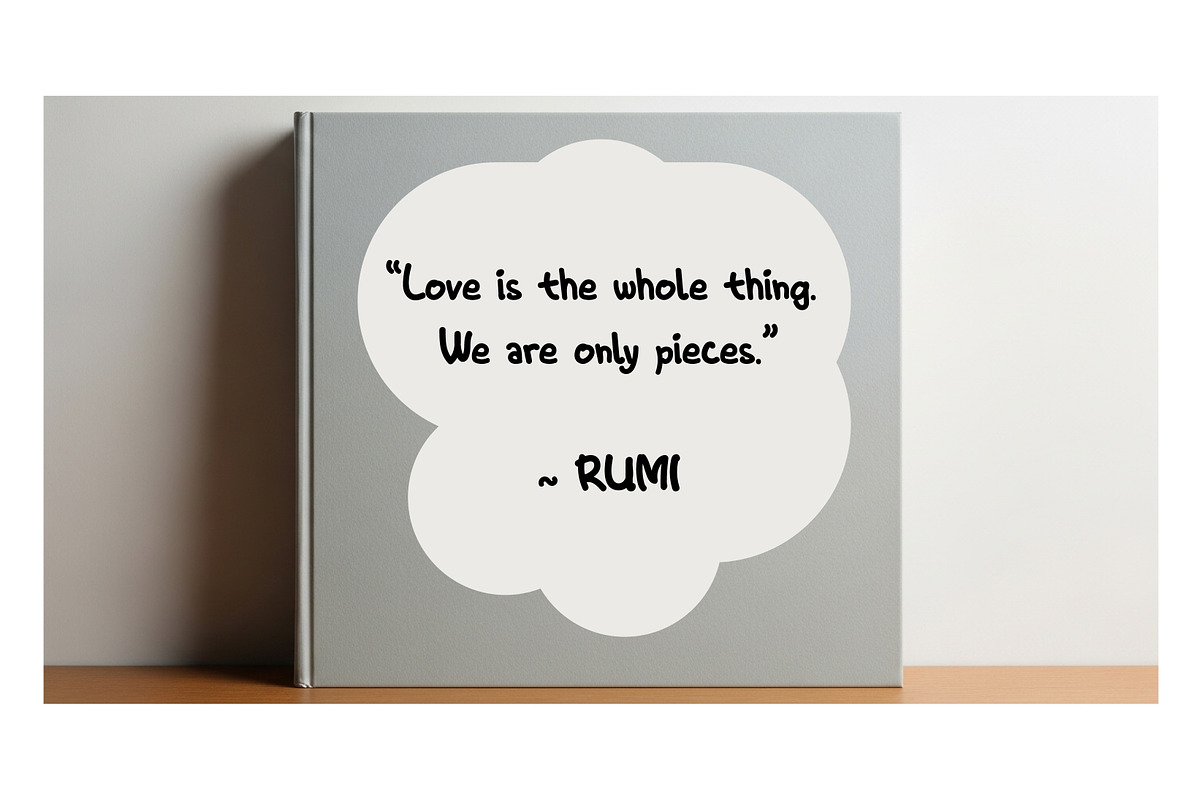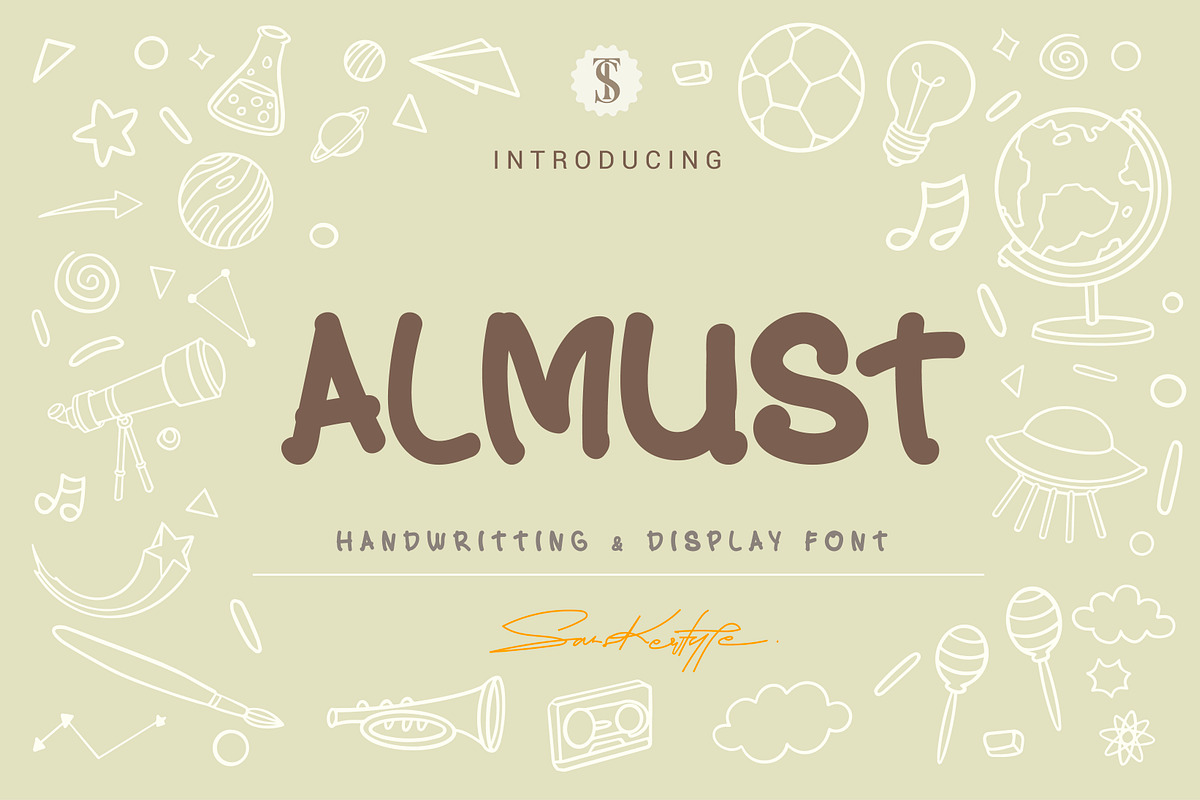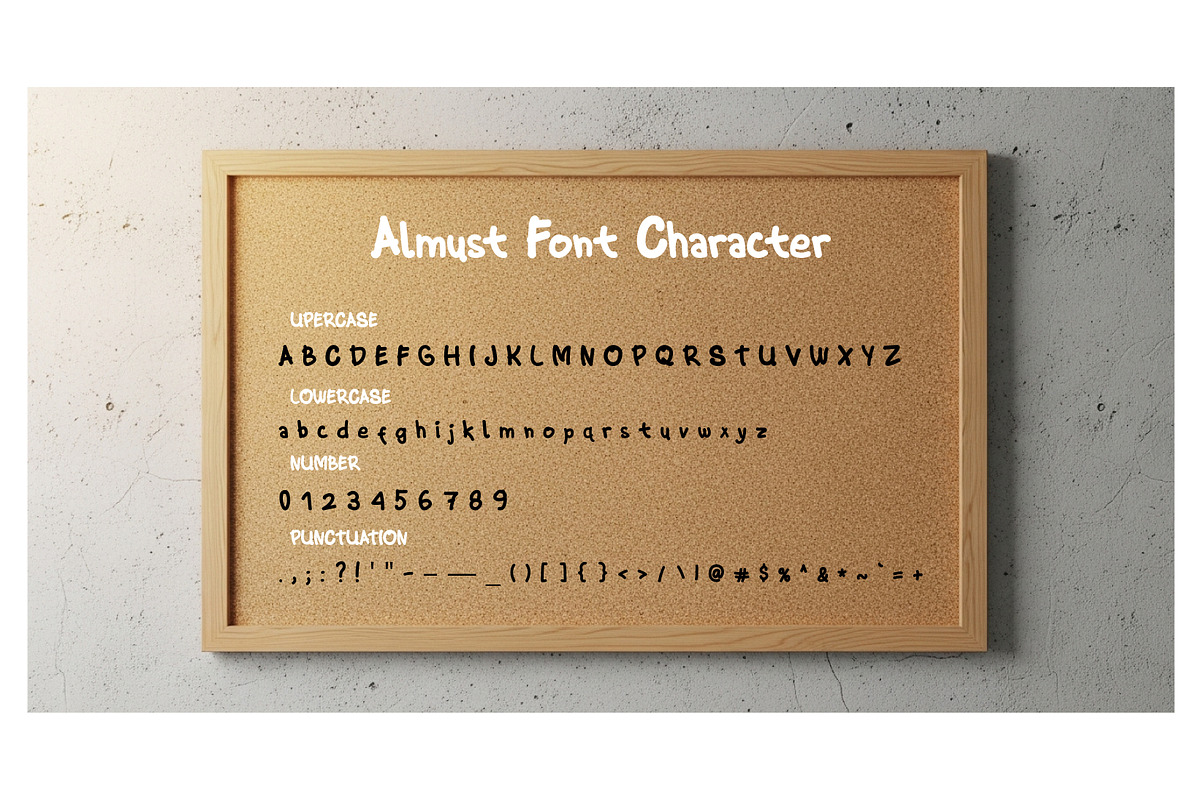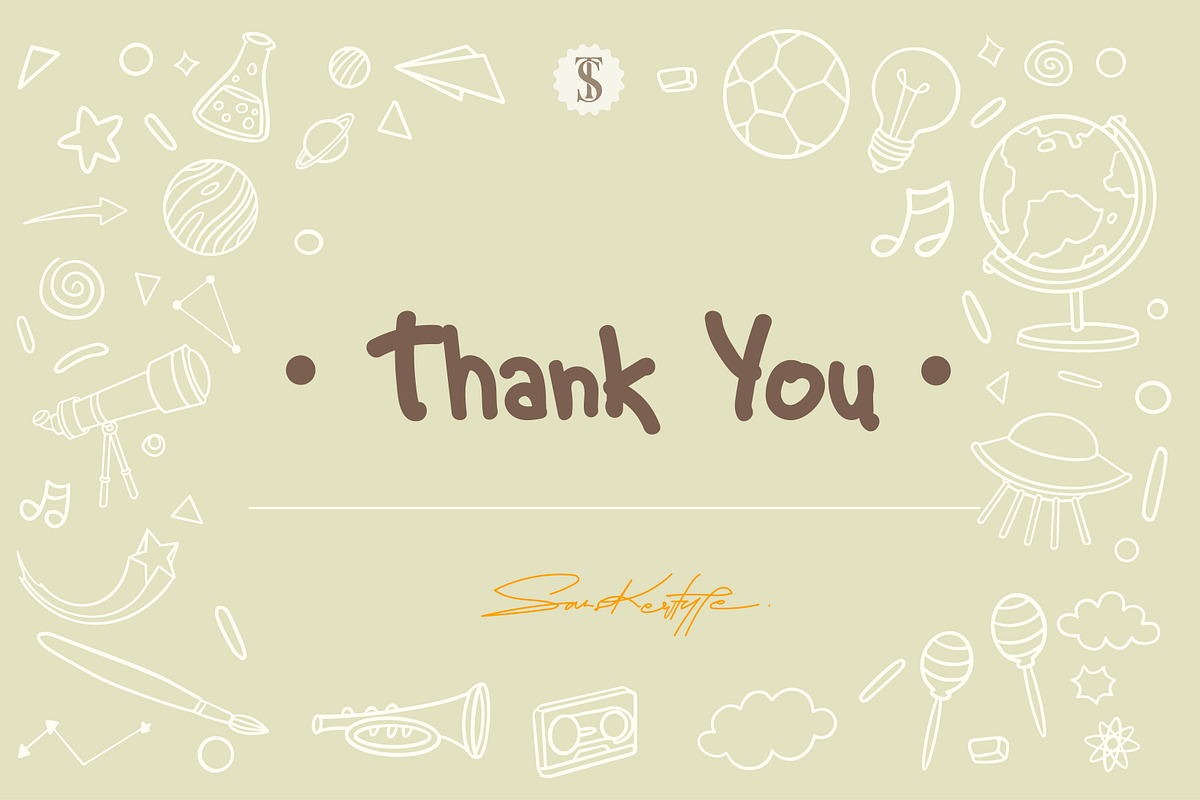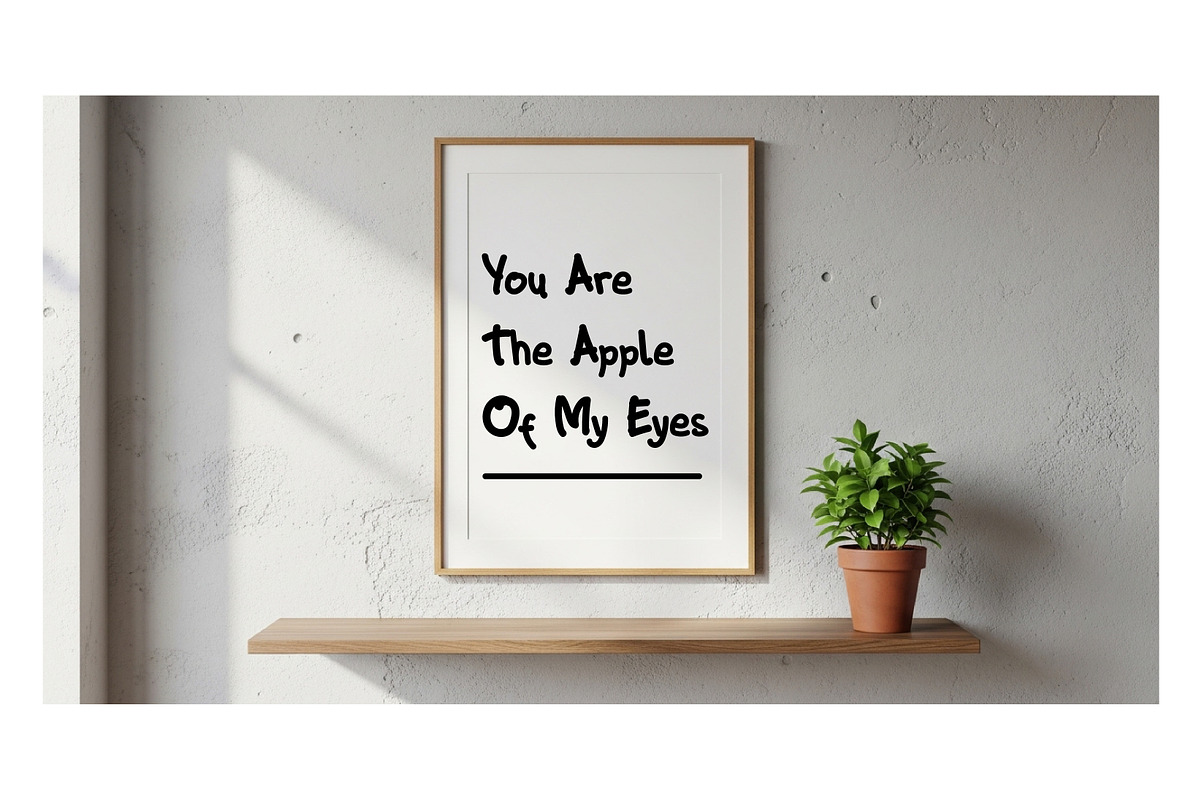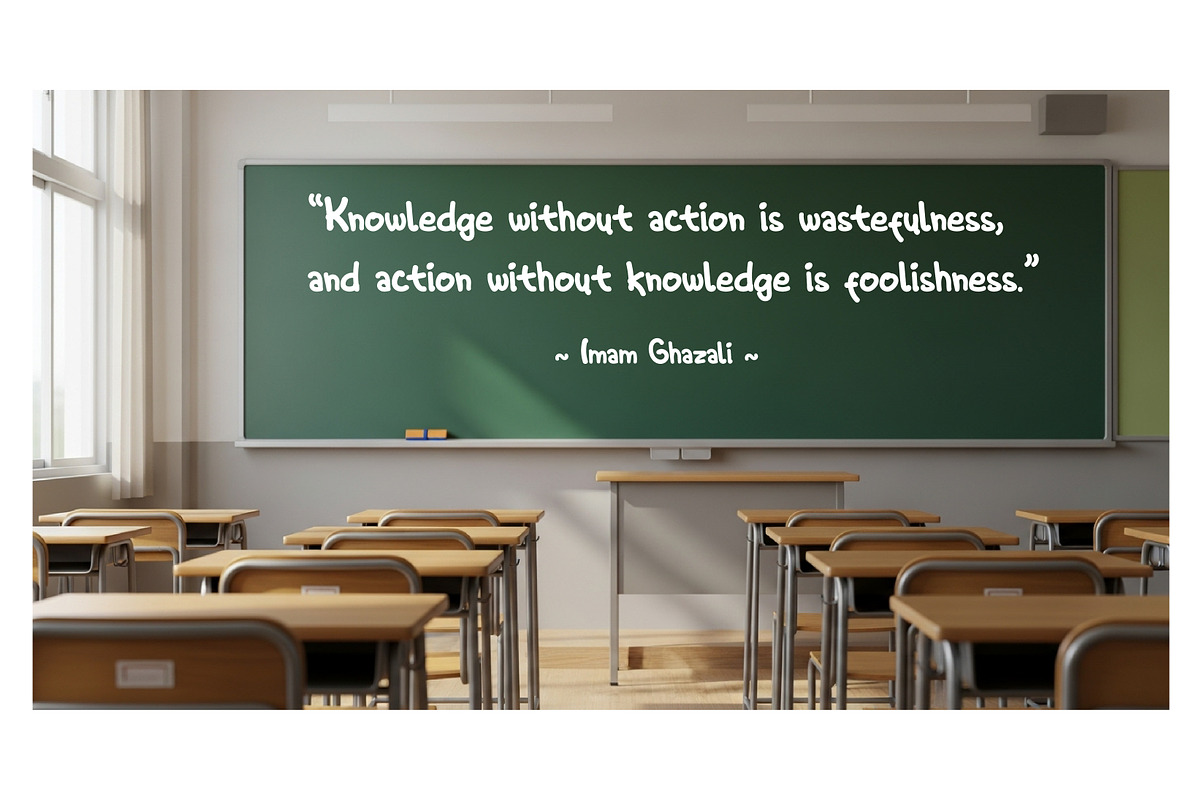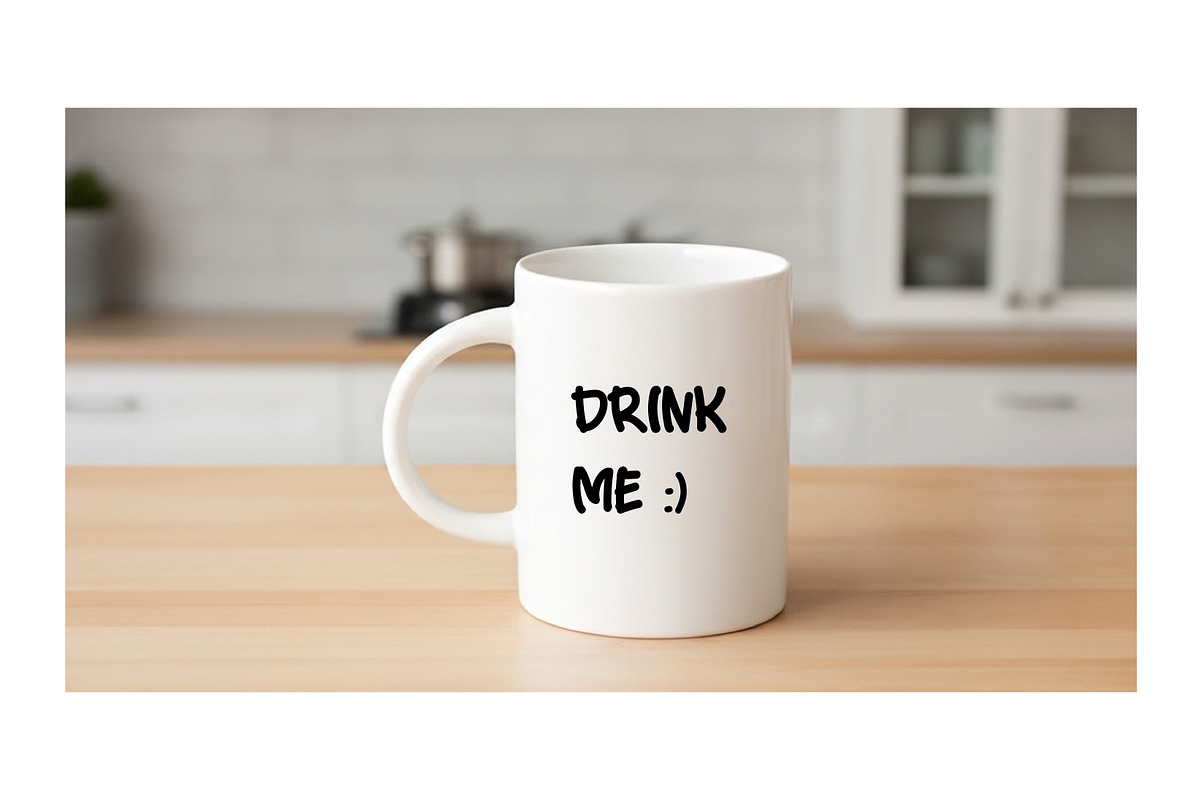
ALMUST - handwritting
ALMUST is a handwritten monoline font with a smooth rounded finish, bringing a warm and personal touch to your designs. Its clean lines and natural handwritten style make it both friendly and versatile.
Perfect for branding, logos, packaging, posters, and stylish quotes, ALMUST works beautifully as both a casual handwriting font and a bold display font that stands out.